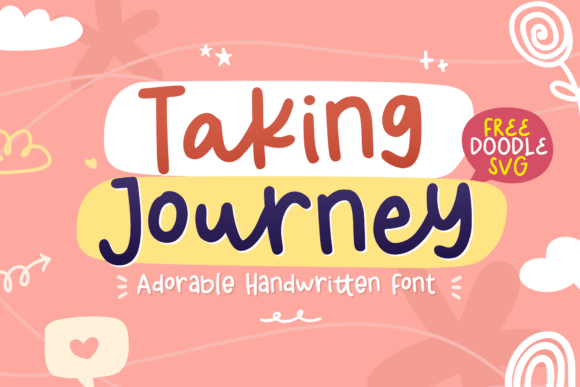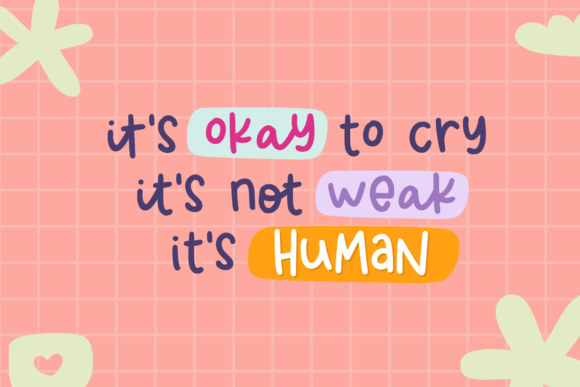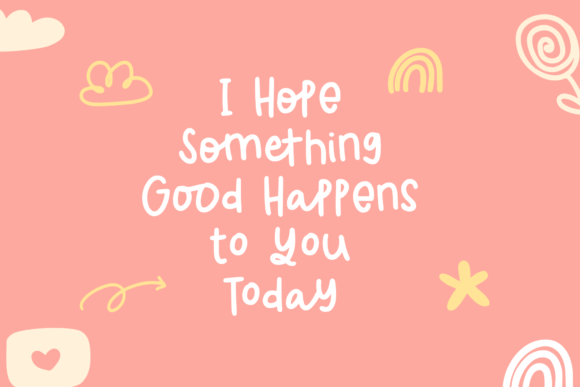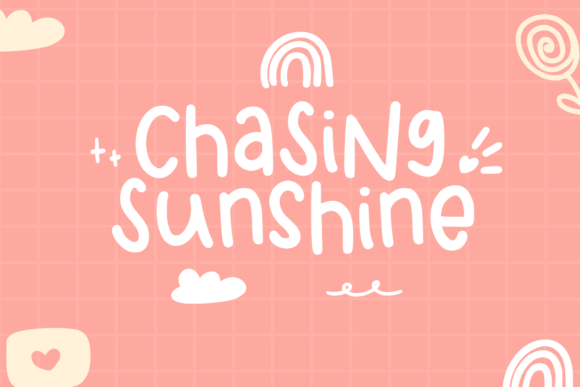
Taking Journey Font
About Taking Journey Font
Taking Journey is a magical script font that exudes an incredible friendly feel, making it a versatile and enchanting choice for a variety of design projects. With its captivating charm, this font has the power to elevate your creations to the highest level, whether you’re working on branding, headings, wedding designs, invitations, signatures, logos, labels, or any other project that calls for a touch of magic.
The friendly and approachable nature of Taking Journey sets the perfect tone for creating warm and inviting designs. Imagine using this font in branding materials where each letter conveys a sense of friendliness, making your brand more relatable. Picture it on wedding designs, adding a magical touch to invitations and creating an enchanting atmosphere for the celebration.
The versatility of Taking Journey extends to various design contexts, providing a magical element that captivates and delights. Whether you’re crafting a logo that demands a unique and friendly vibe or working on labels that require a touch of whimsy, Taking Journey is designed to infuse your projects with a magical script charm.
Taking Journey becomes more than just a font; it becomes a creative tool that transforms your ideas into enchanting visual expressions. Its magical script style adds a unique flair to your designs, making them stand out and leave a lasting impression.
As you embark on your design journey, let Taking Journey be the magical companion that elevates your projects to new heights. Whether you’re a seasoned designer or someone exploring the world of creativity, Taking Journey invites you to infuse your designs with its incredible friendly feel, turning each project into a magical experience.